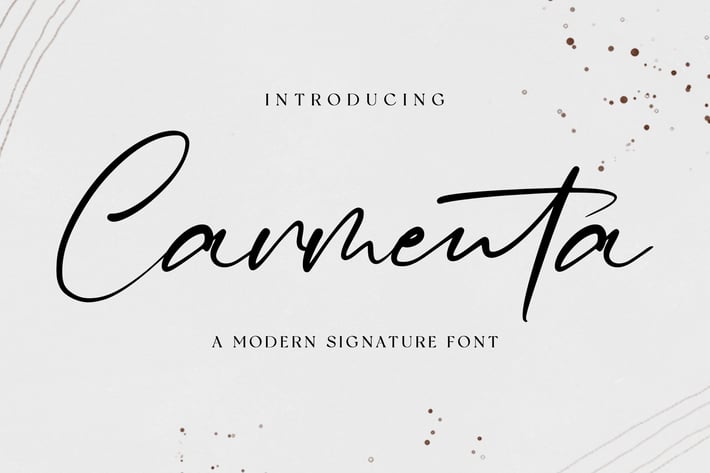
Carmenta - Signature Font
NissaStudio
Carmenta is a distinct graceful script font. Fall for its ravishing style and use it to create gorgeous designs.
Modern Handwritten Font
Beautiful Swash (Ending tail)
Beautiful Titling (Beginning tail)
Special Ligatures